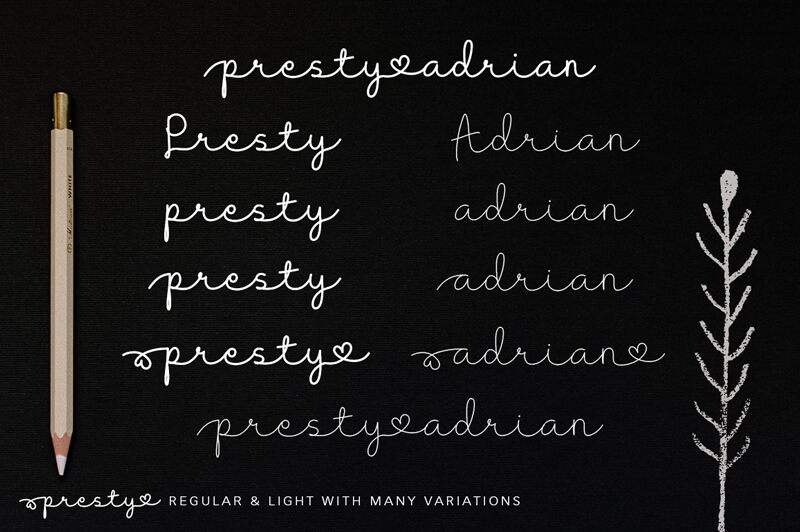
Presty Light is a captivating script font that exudes a playful, school-inspired charm. Designed by Milla Febriana Tanjung, this font's delicate, flowing strokes create a sense of effortless elegance. The light weight of the font adds a touch of youthfulness, making it well-suited for a variety of design applications, from greeting cards and invitations to educational materials and children's stationery.
The font's distinctive style would also lend itself beautifully to branding and packaging projects, adding a touch of whimsy and personality to any design.
Presty Light
Milla Febriana Tanjung